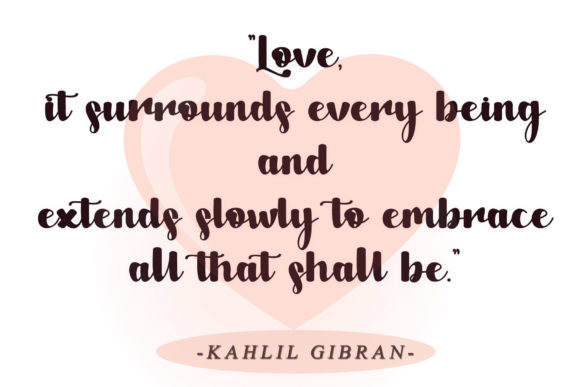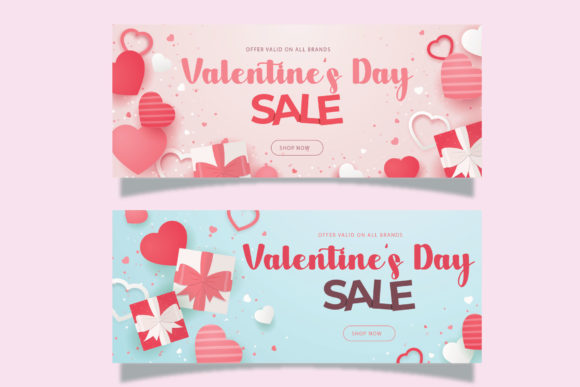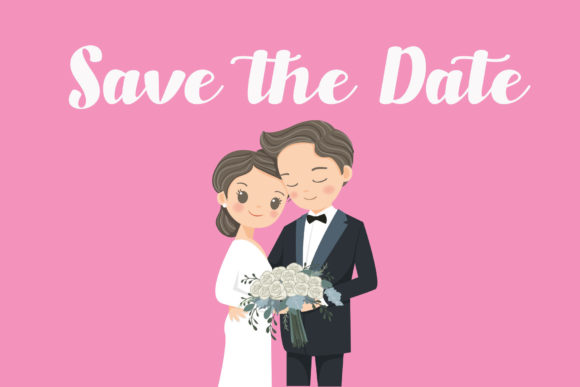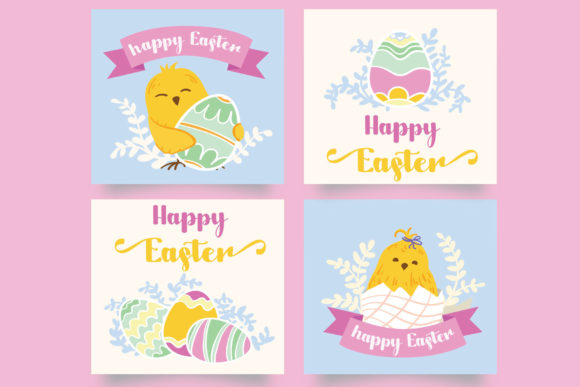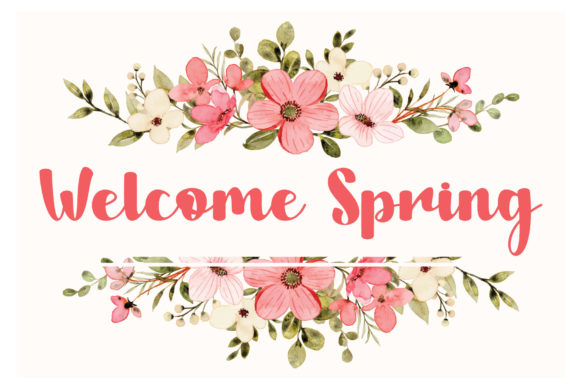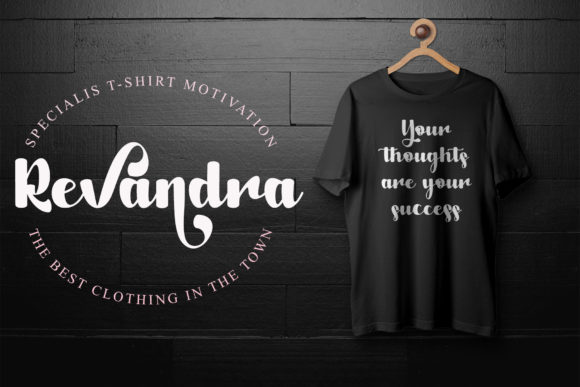
Introduction to Qiandra Font
Have you ever stared at a blank canvas, feeling stuck and unsure of where to begin your next creative project? For many designers, this is a familiar feeling. But what if you had the perfect tool to spark your imagination and bring your vision to life? Enter the Qiandra Font, a stylish and assertive script font designed to add a touch of elegance and sophistication to your designs.
With its beautiful and refreshing look, the Qiandra Font is a valuable resource for designers seeking to elevate their work. Whether you’re creating a logo, typography piece, or branding materials, this font is sure to make a lasting impression. And the best part? It’s PUA encoded, making it easy to access all glyphs and swashes with just a few clicks.
Key Features of Qiandra Font
- High-quality design resource for creative projects, offering a unique and elegant style.
- Features a range of characters, including uppercase and lowercase letters, numbers, and punctuation marks.
- Perfect for designers looking for a stylish and versatile font to enhance their creative projects.
Honest Review: Qiandra Font
I recently had the opportunity to work with the Qiandra Font, and I must say it’s a fantastic addition to any design project. This beautiful script font is perfect for adding a touch of elegance to your work, whether you’re creating a wedding invitation, a logo, or a brochure.
- ✨ The high-quality design of the font is evident from the first glance. It’s a great resource for anyone looking to add a professional touch to their creative project.
- ⚠️ The font is a bit on the heavier side, which may not be suitable for all design applications.
- ⚠️ Some users may find the font a bit difficult to read in smaller sizes, so it’s essential to test it out in different contexts.
Overall, I’m thoroughly impressed with the Qiandra Font. It’s a great design resource that can elevate your creative project to the next level. With its high-quality design and free download option, it’s a must-have for any designer looking to add some sophistication to their work.
Qiandra Font is a versatile design resource that can be used in a variety of creative projects, including logos, social media graphics, presentations, and documents. Its high-quality design and transparent background make it an ideal choice for designers and non-designers alike.